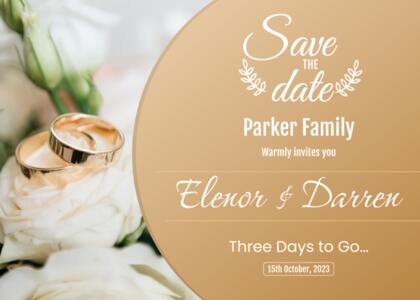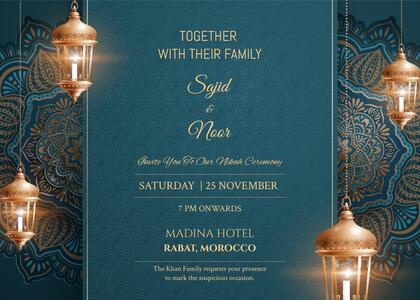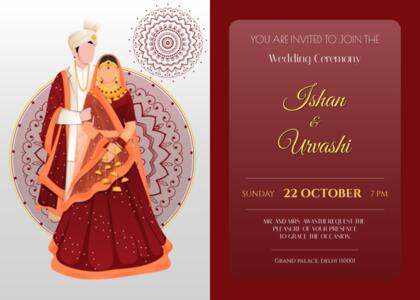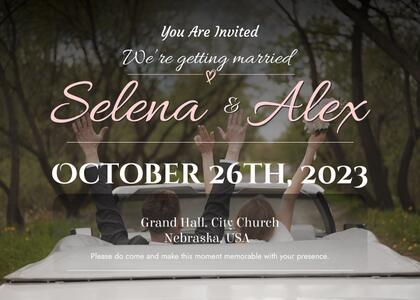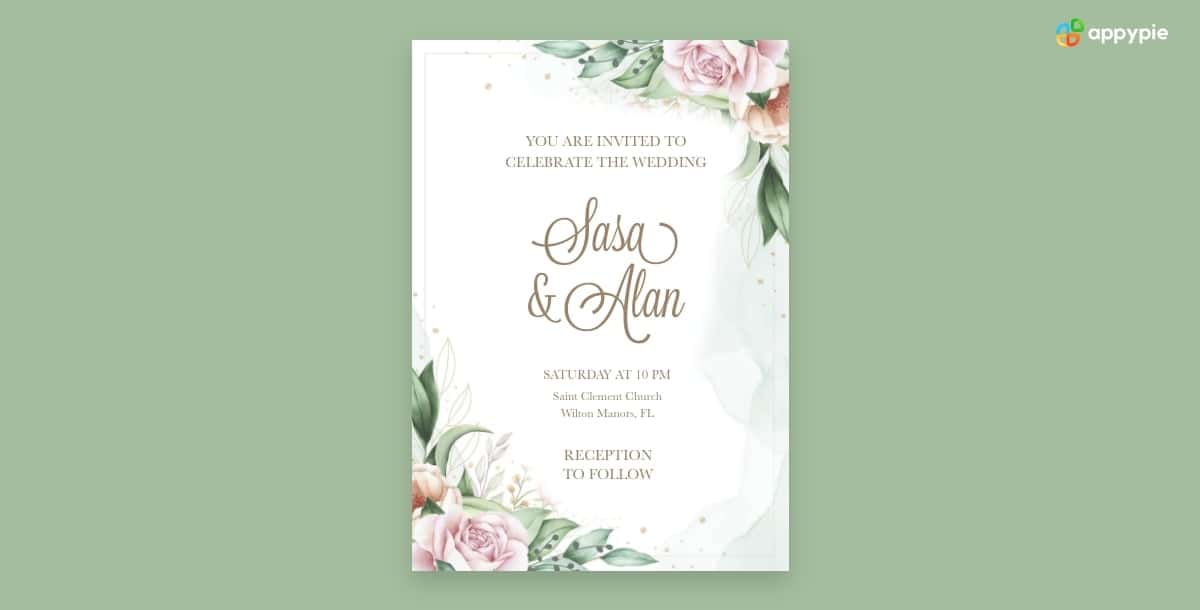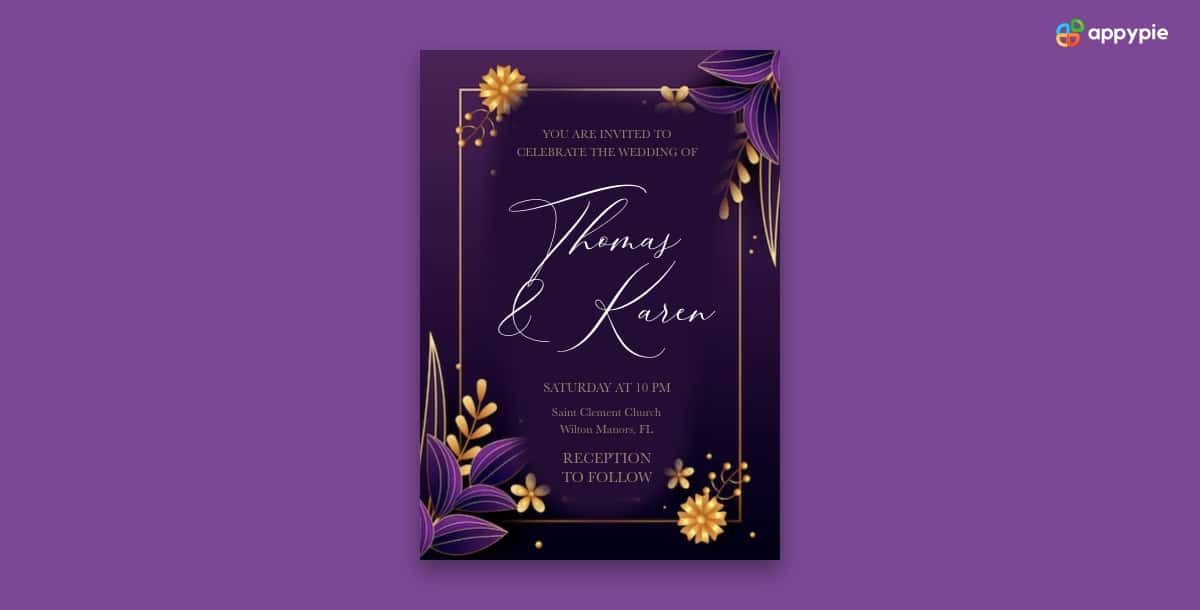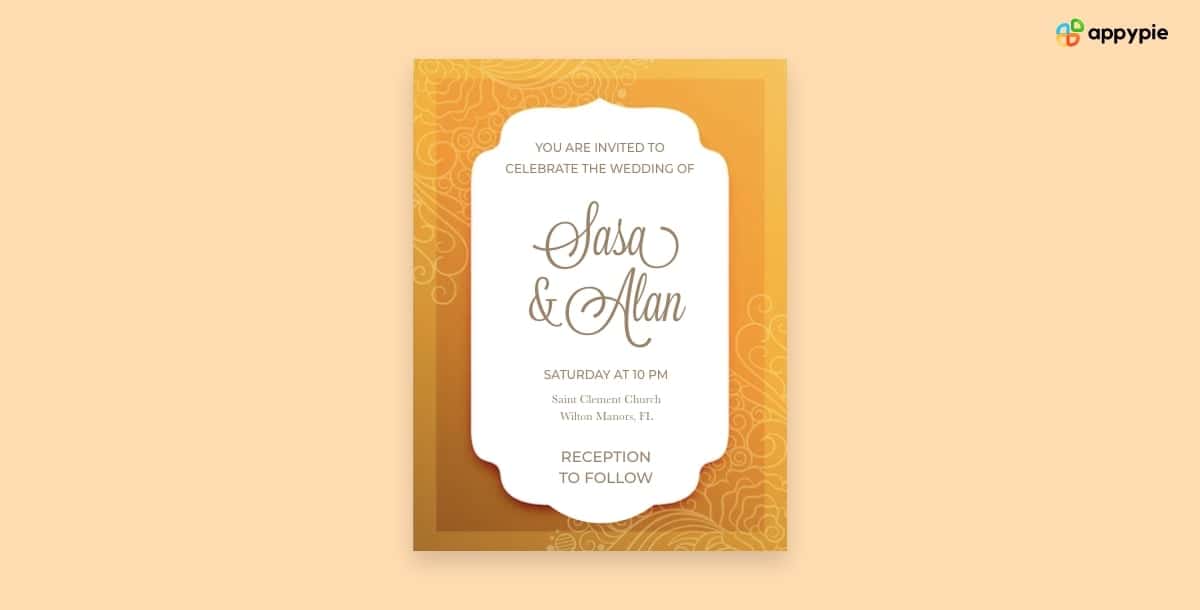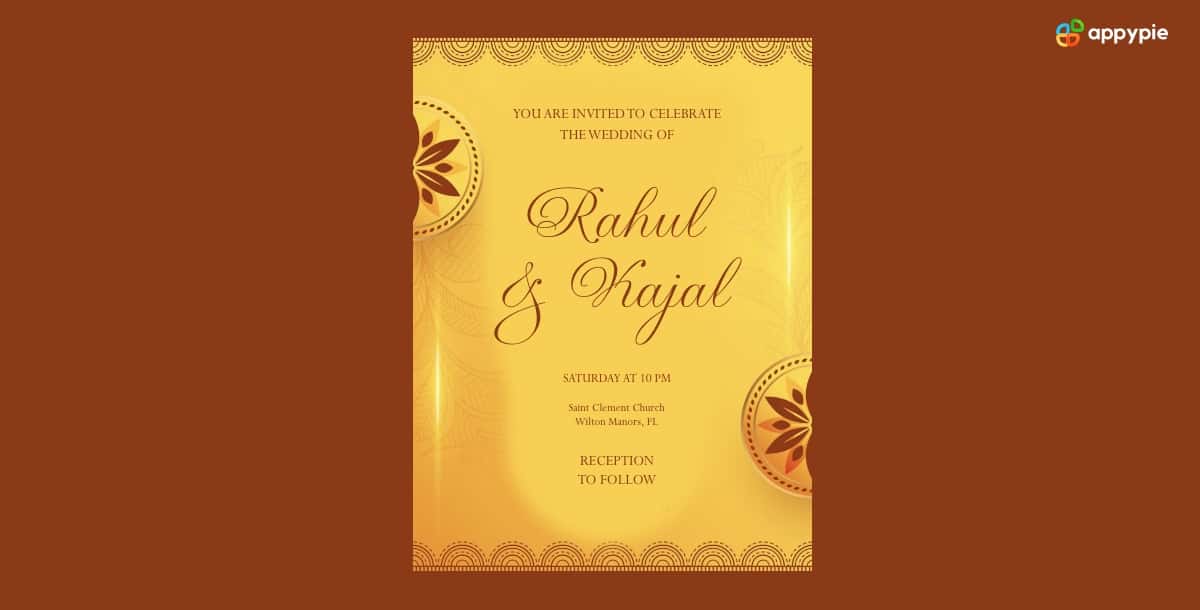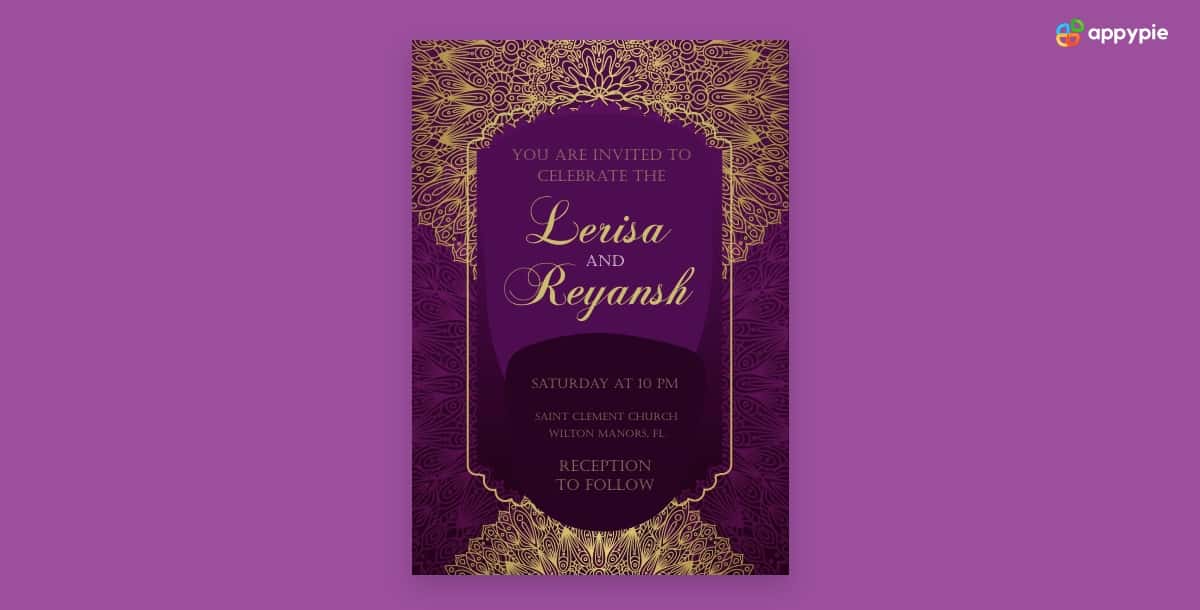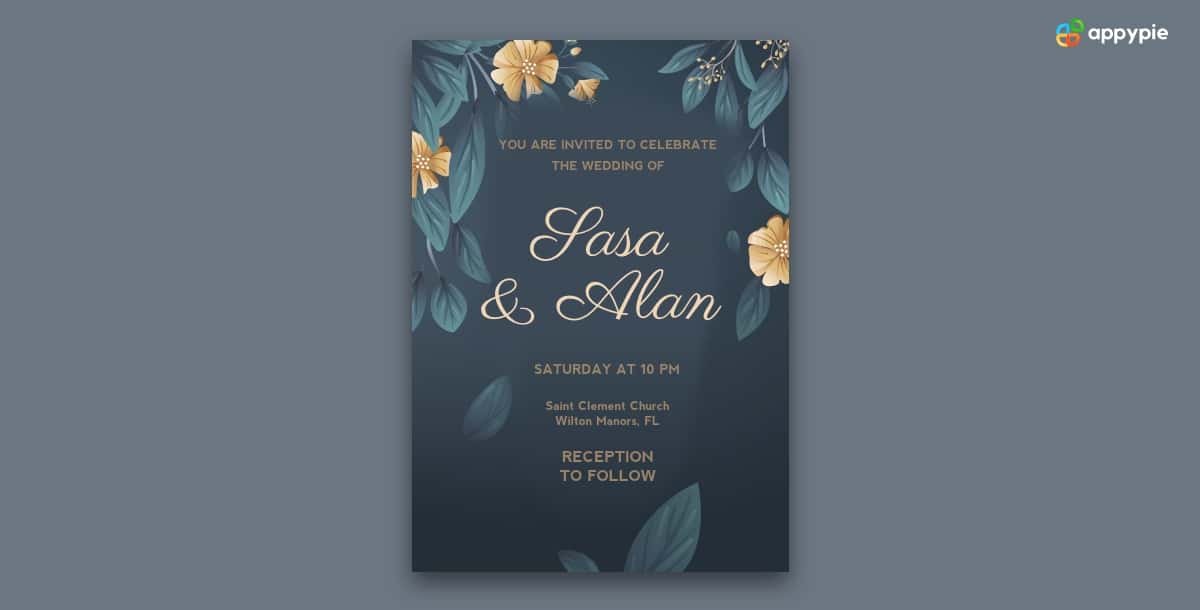
Best Wedding Fonts and Wedding Font Combinations for Wedding Invitations
When it comes to designing the perfect wedding invitation, every detail matters. From the choice of paper to the wording and even the wedding invitation card size, each element contributes to the overall aesthetic and sets the tone for the celebration. Among these crucial components, selecting the right wedding font is paramount. Fonts have the power to convey emotions, themes, and the essence of your special day.
In this blog, we delve into the realm of wedding fonts, exploring all the special fonts wedding invitations, and font pairings to make your invitations truly memorable.
The aesthetics of a wedding invitation define the theme of the entire event. This theme typically flows through all the design materials like wedding posters, wedding invitations, and save-the-date cards.
Best Wedding Fonts and Font Combinations for Wedding Invitations
Design a wedding card from scratch and take it from ordinary to extraordinary with our guide to the best wedding fonts and font combinations. Immerse yourself in a world of timeless elegance, modern sophistication, and romantic charm as we unveil the perfect pairings for your special day. Discover how the right fonts can transform your invitations into cherished keepsakes, setting the tone for a celebration as unique and beautiful as your love story. Join us on a journey through the artistry of wedding fonts, where every stroke tells a tale of romance and refinement.
- Flaemische Kanzleischrift + Copperplate
- Baskerville + Lavenderia
- La Bohemia + Baskerville
- Montserrat + Great Vibes
- Gravura + Perpetua
- Castellar + Chopin Script
- Nevis Bold + Parisienne
- Argentina Script + Alize
- Josefin Sans + Bodoni
- Best One Love + Trajan
- Bickham Script Pro + Dante
- Josefin Sans + Josefin Slab
- Masterics + Caviar Dreams
- Feel Script + Modern No. 20
- Montserrat Light + Playfair Display
- Montserrat + Hammersmith One
- Silver South + Minerva Modern
- Cantoni Pro + Mr Eaves
- Anonymous Pro + Mr. Dafoe
- Lato + Vidaloka
Flaemische Kanzleischrift, with its ornate and intricate detailing, perfectly complements the timeless elegance of Copperplate. The combination exudes a sense of regality and sophistication, making it ideal for formal and classic wedding invitations. The delicate curves of Flaemische Kanzleischrift harmonize seamlessly with the structured and refined strokes of Copperplate, creating a visually captivating ensemble that sets the tone for a grand celebration.
Baskerville, known for its timeless serifs and high legibility, pairs effortlessly with the graceful script of one of the most romantic fonts, Lavenderia. This combination strikes a perfect balance between tradition and modernity. Baskerville provides a solid foundation, while Lavenderia adds a touch of whimsy and romance. The result is an invitation that feels both classic and contemporary, making it versatile for a range of wedding styles, from formal affairs to more relaxed celebrations.
La Bohemia, with its artistic and slightly whimsical script, finds a complementary partner in the structured serifs of Baskerville. This combination creates an invitation that is both expressive and refined. La Bohemia brings a touch of artistic flair, while Baskerville ensures clear communication of details. The result is an invitation that feels like a work of art while maintaining a sense of sophistication and order.
Montserrat, a modern and geometric sans-serif font, pairs strikingly with the flowing cursive of Great Vibes. This combination brings together the best of both worlds—contemporary minimalism and romantic elegance. Montserrat’s clean lines provide a modern backdrop, allowing Great Vibes to stand out as a focal point, perfect for couples seeking a chic and trendy aesthetic for their wedding invitations.
Gravura, with its ornate and decorative features, pairs gracefully with the classic serifs of Perpetua. This combination exudes a sense of opulence and sophistication, making it well-suited for formal and luxurious wedding celebrations. Gravura’s intricate details add a touch of grandeur, while Perpetua’s timeless serifs ensure a sense of clarity and readability, resulting in an invitation that is both lavish and refined.
The bold and striking presence of Castellar finds a harmonious counterpart in the delicate and flowing script of Chopin Script. This combination creates a visually captivating contrast, making it ideal for couples seeking an invitation with a regal and majestic feel. Castellar’s strong lines provide a solid foundation, allowing Chopin Script to add a touch of romanticism, resulting in an invitation that is both bold and elegant.
Nevis Bold, a modern and bold sans-serif font, pairs seamlessly with the charming script of Parisienne. This combination brings a contemporary and romantic vibe to wedding invitations. Nevis Bold adds a modern edge and clarity, allowing Parisienne to infuse a sense of whimsy and playfulness. The result is an invitation that is both bold and romantic, making it suitable for couples with a flair for the modern and the romantic.